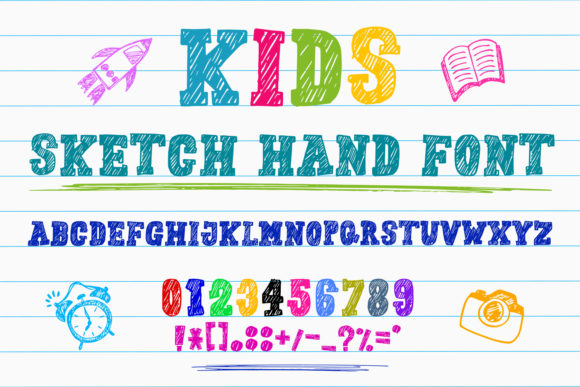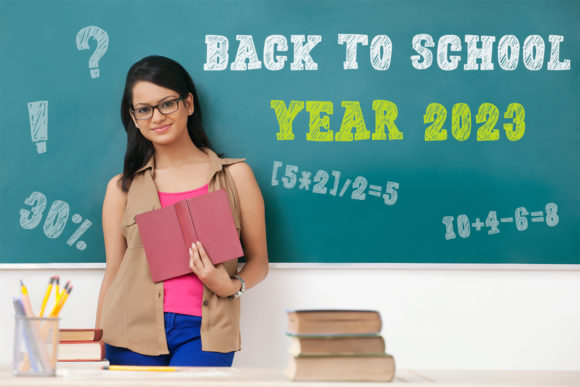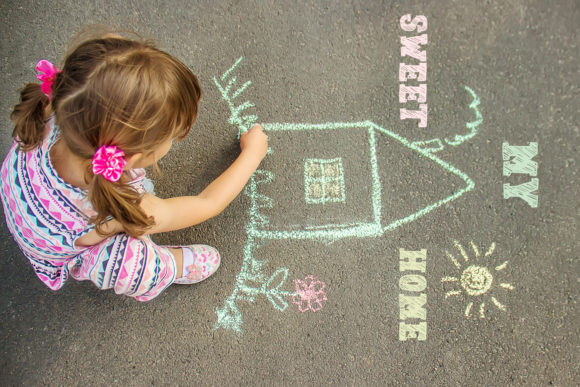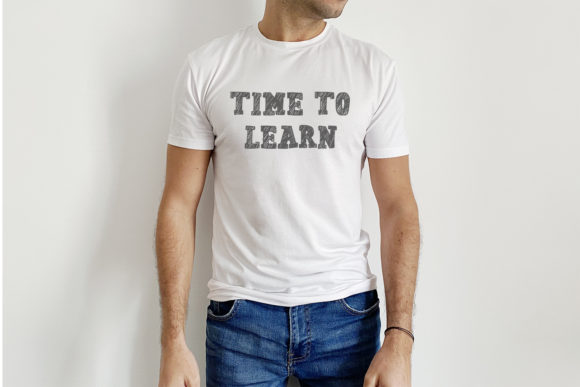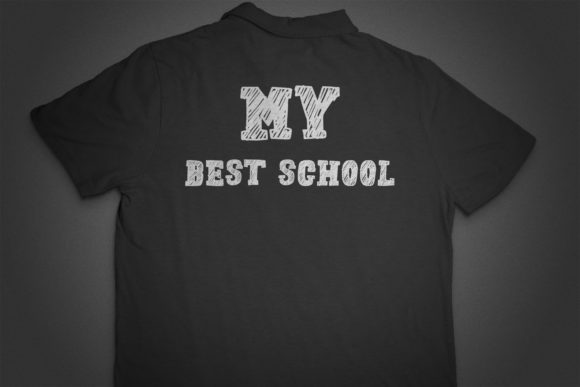
Kids Sketch Hand Font
About Kids Sketch Hand Font
Kids Sketch Hand is a great sketch handwritten font. It’s suitable for chalk writing and it’s the perfect font for school-themed projects.